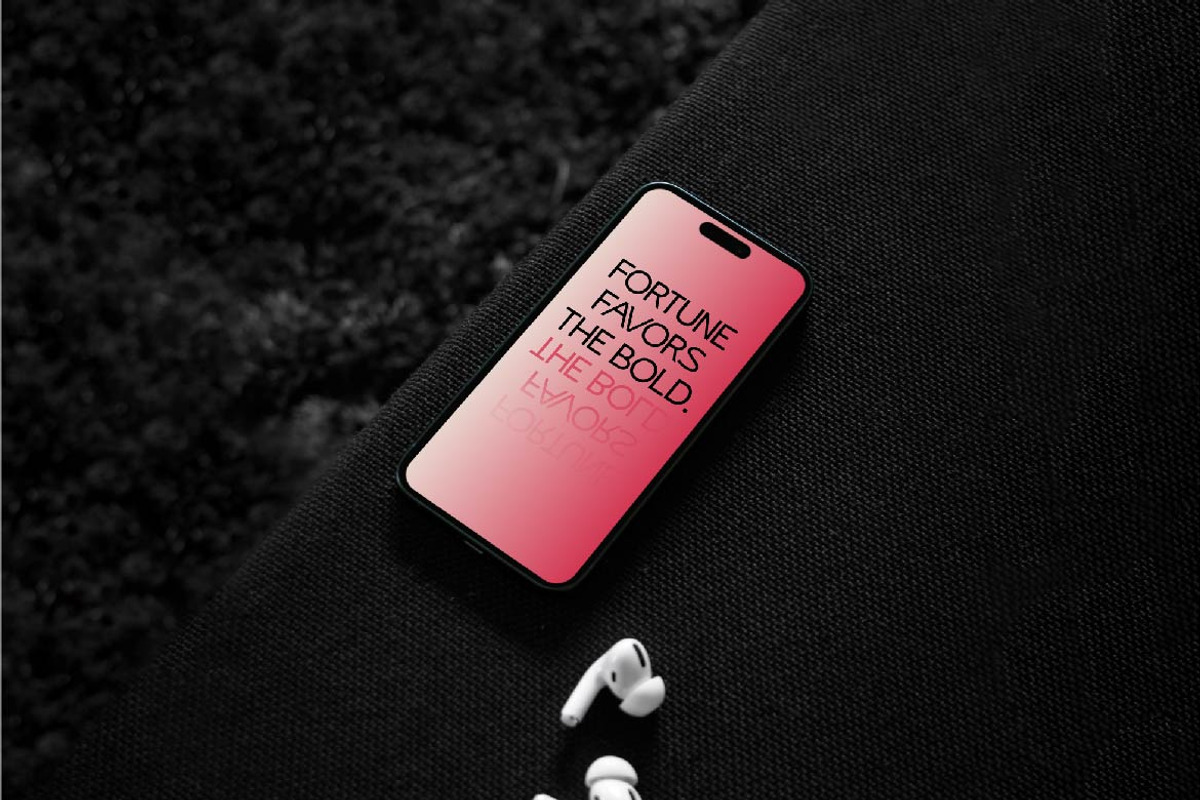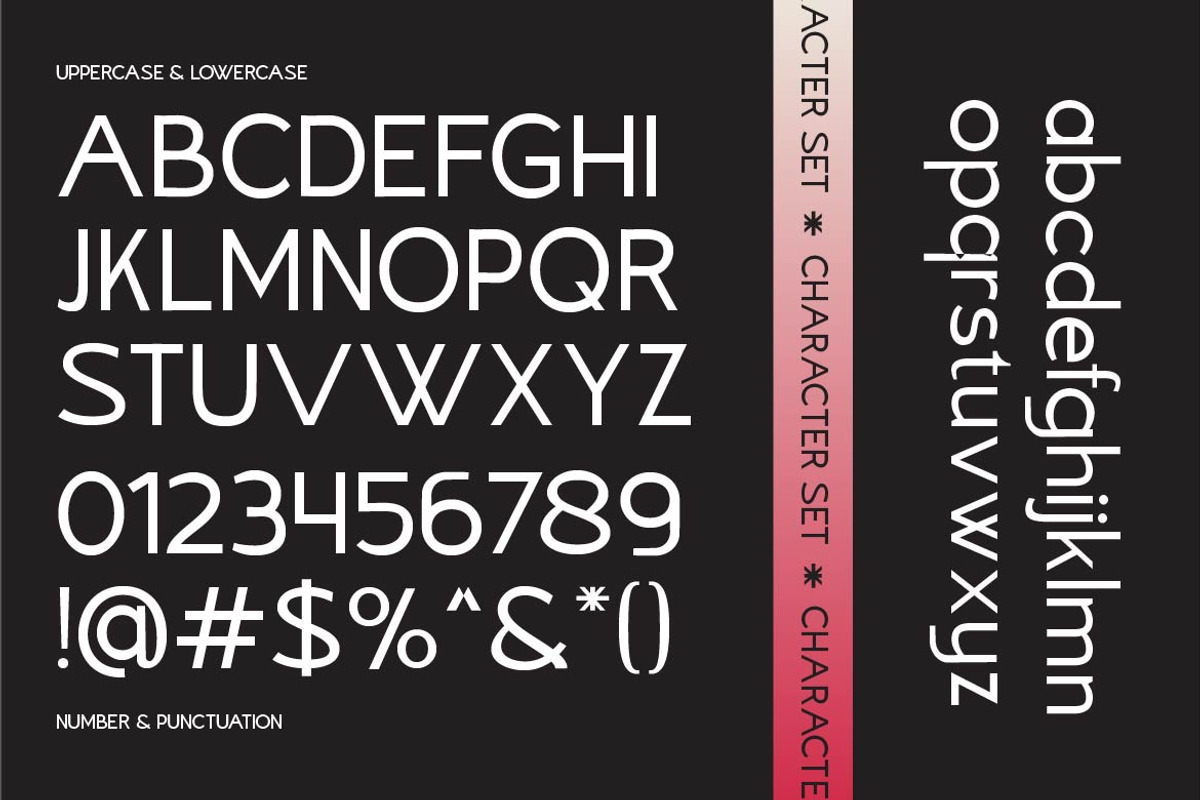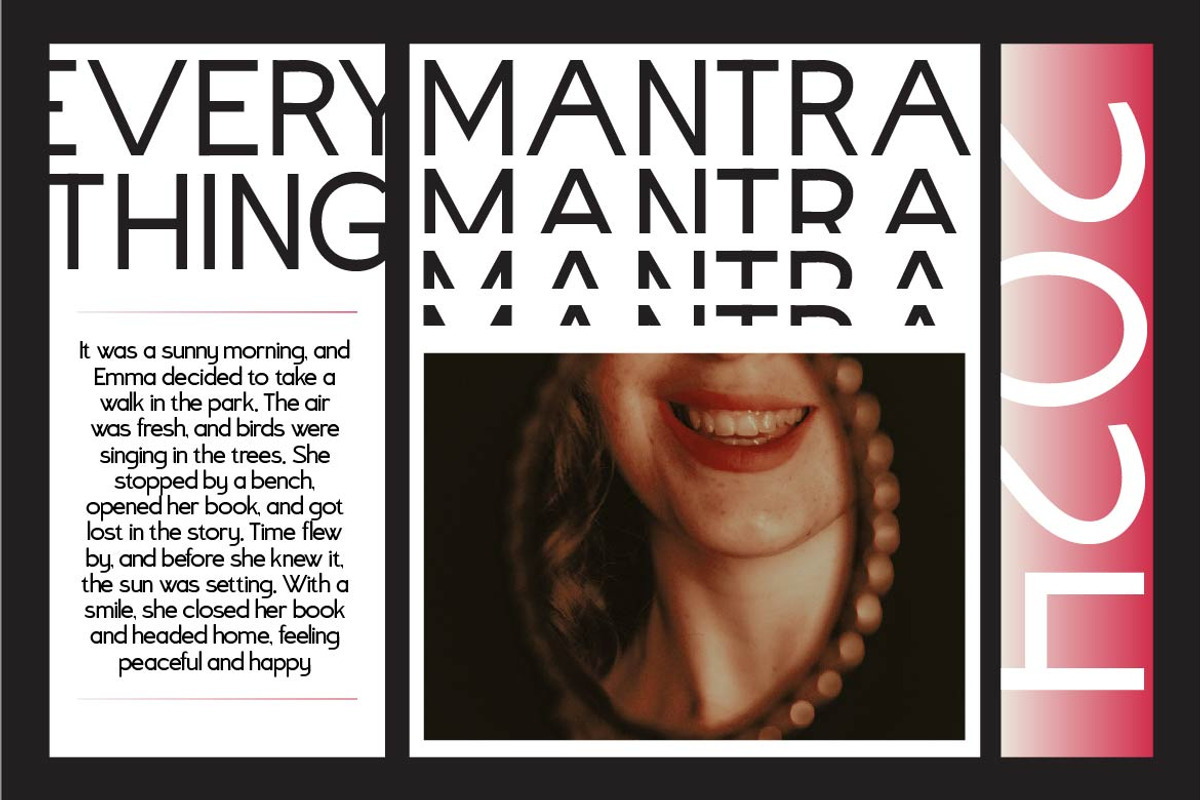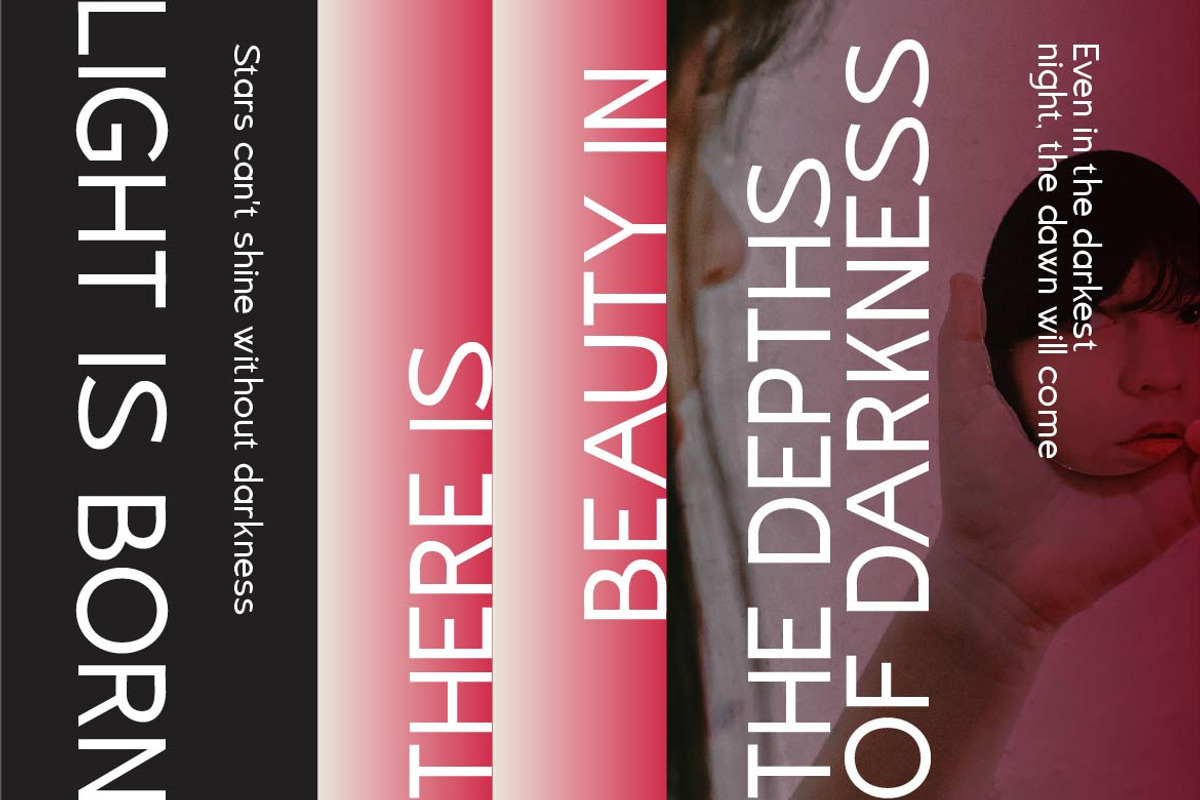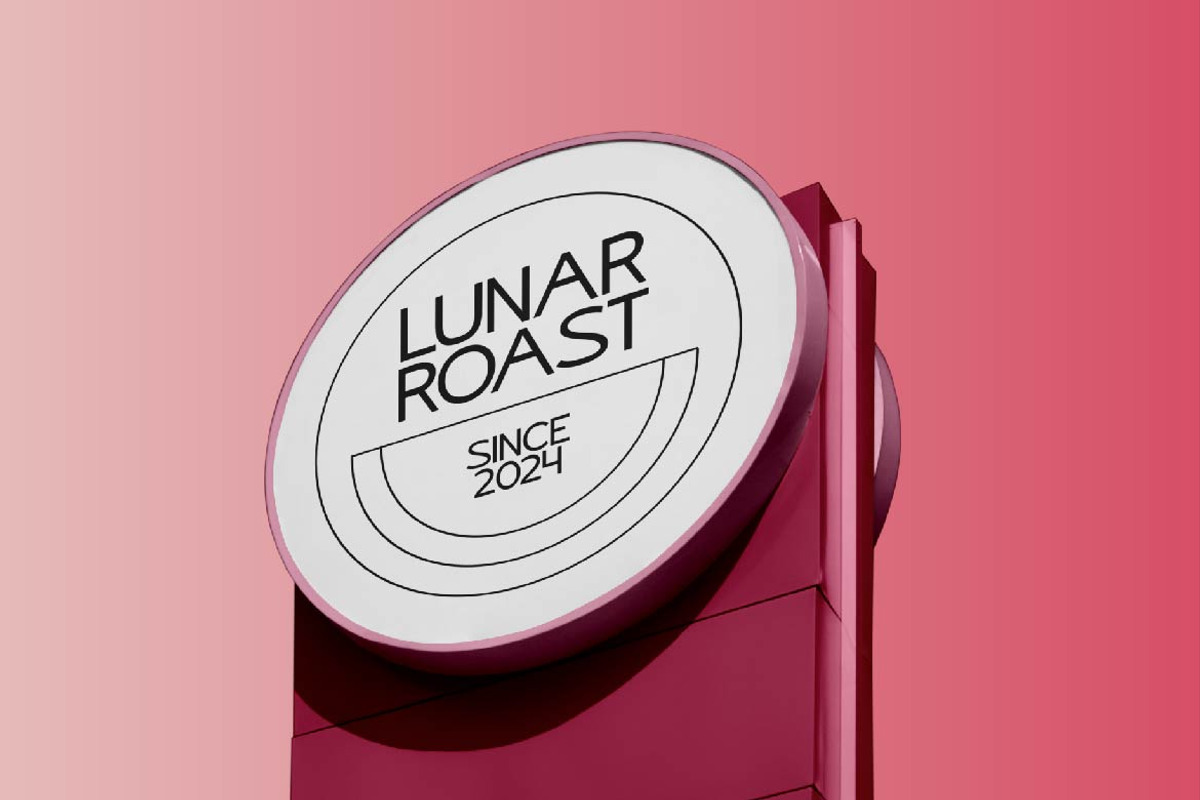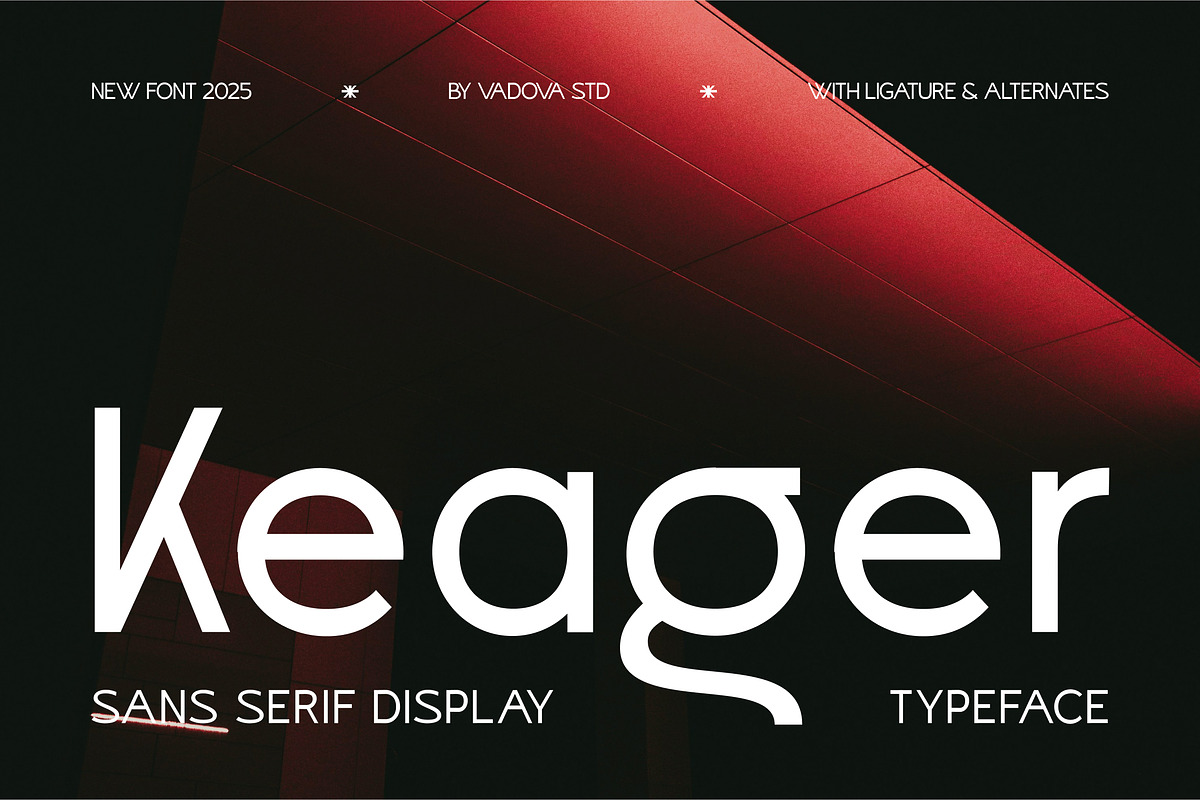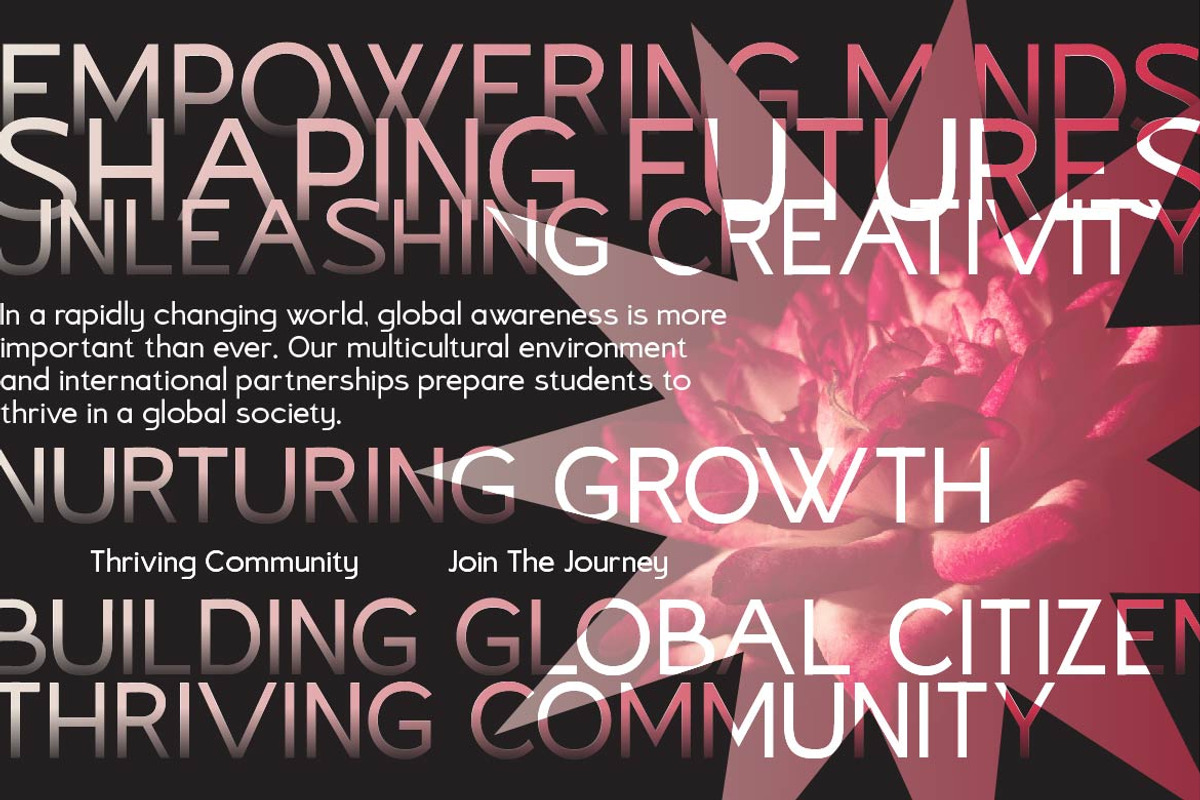
Keager – Modern Sans Serif Display
Keager is a striking sans serif typeface built to command attention in the modern design landscape. With its bold geometric structure, sleek curves, and experimental alternates, this font combines precision with creativity to give every layout a fresh, forward-looking identity.
Designed for impact, Keager projects confidence and versatility—perfect for logos, tech-driven branding, editorial covers, packaging, and digital campaigns. Its clean yet unique details ensure your message stands out across both print and screen.
Why Designers Choose Keager:
Bold geometric sans with a futuristic edge.
Distinctive ligatures & alternates for creative flexibility.
Balanced for readability while maintaining strong character.
A modern display typeface that elevates branding with confidence.
Uppercase & Lowercase Letters
Alternates & Ligatures included
Tech & Startup Branding
Bold Logo Design
Editorial Headlines & Posters
Fashion & Lifestyle Identity
Packaging & Product Labels
Digital Marketing & Social Media Graphics